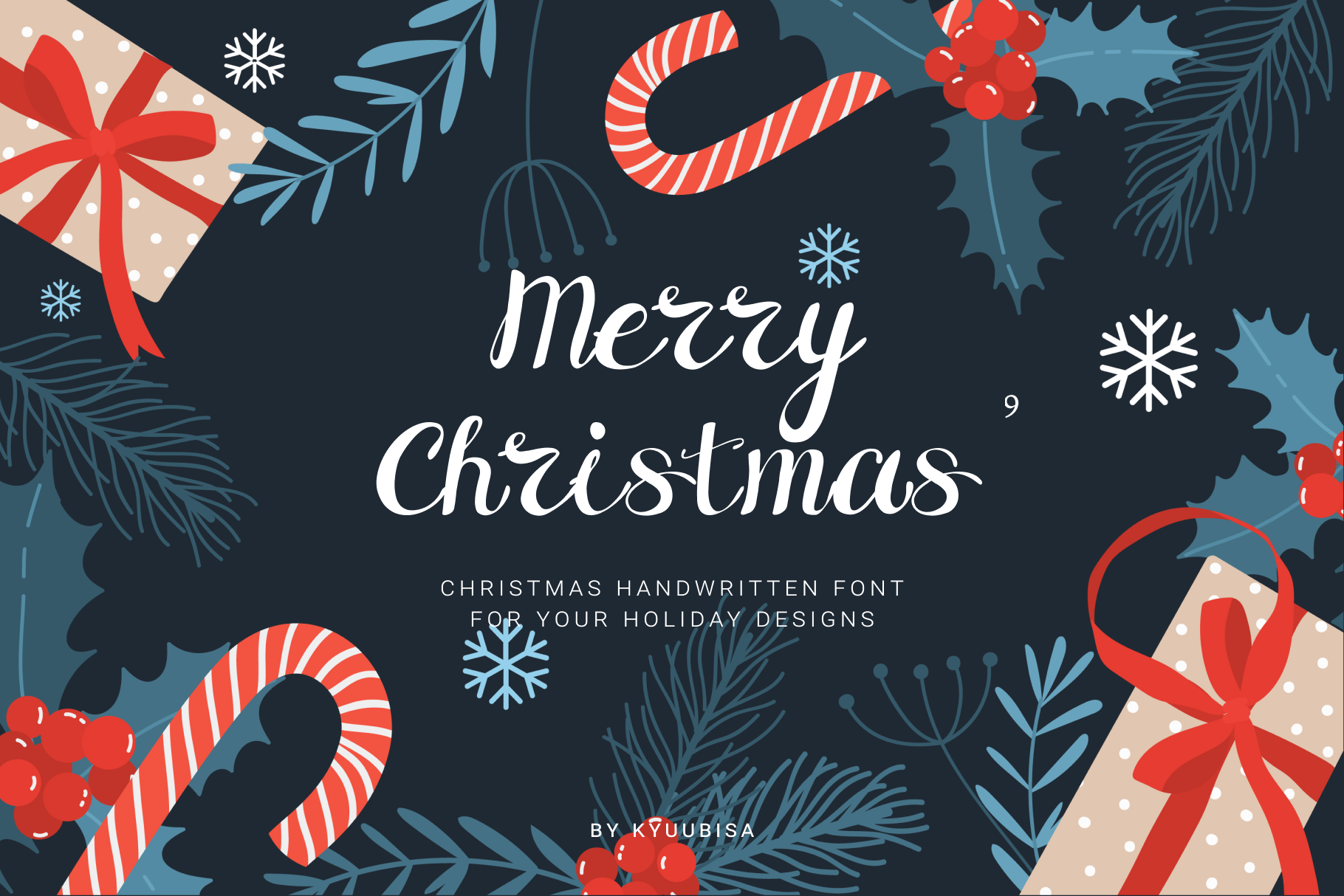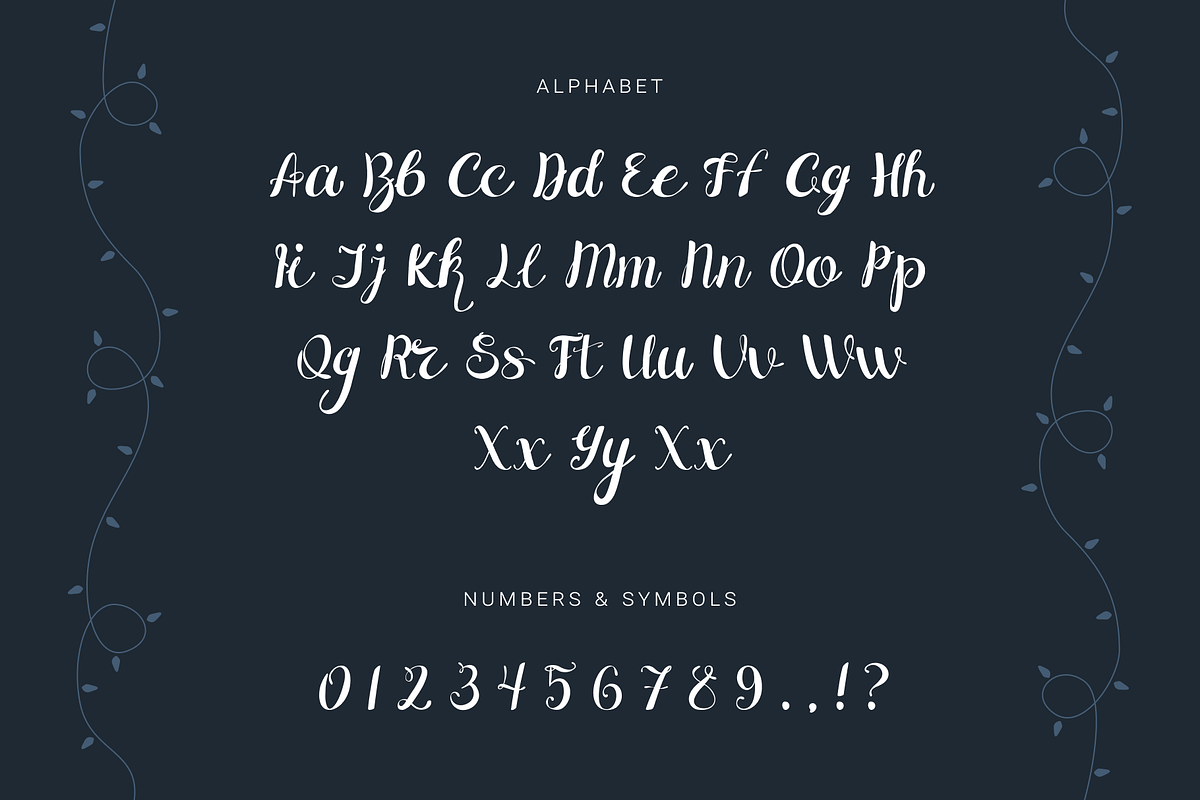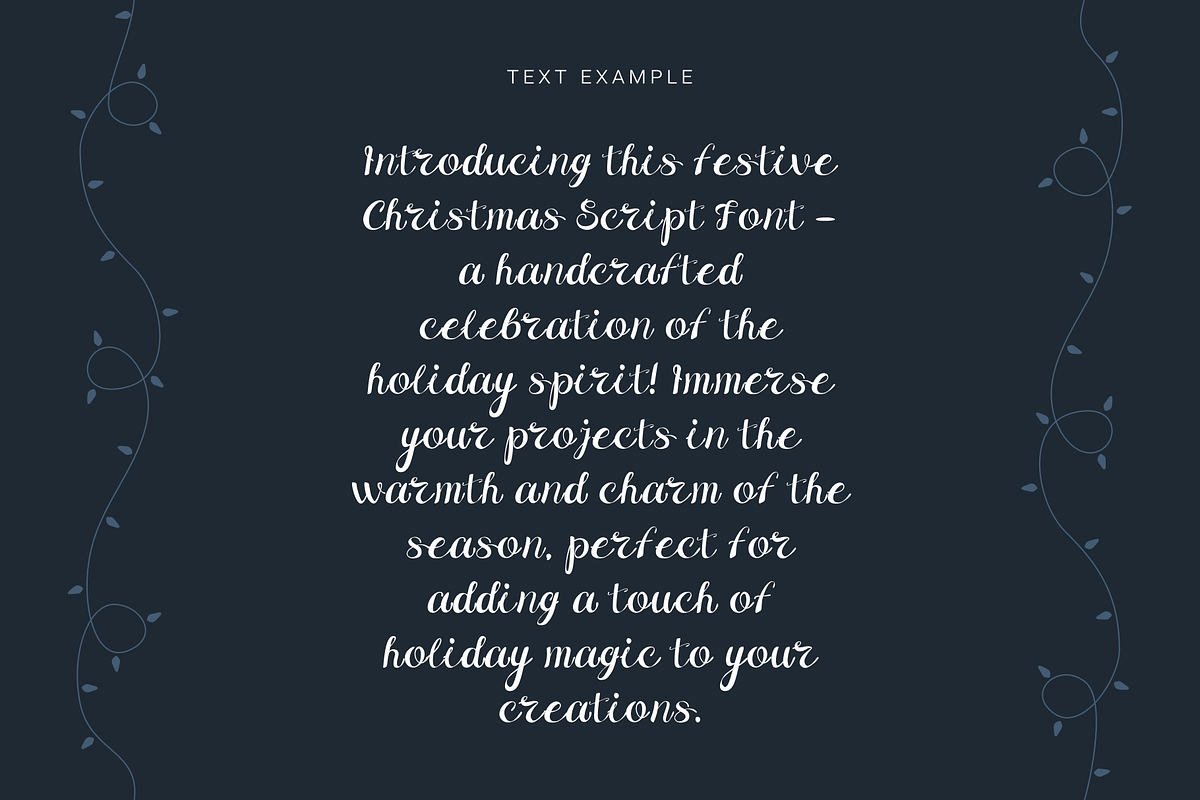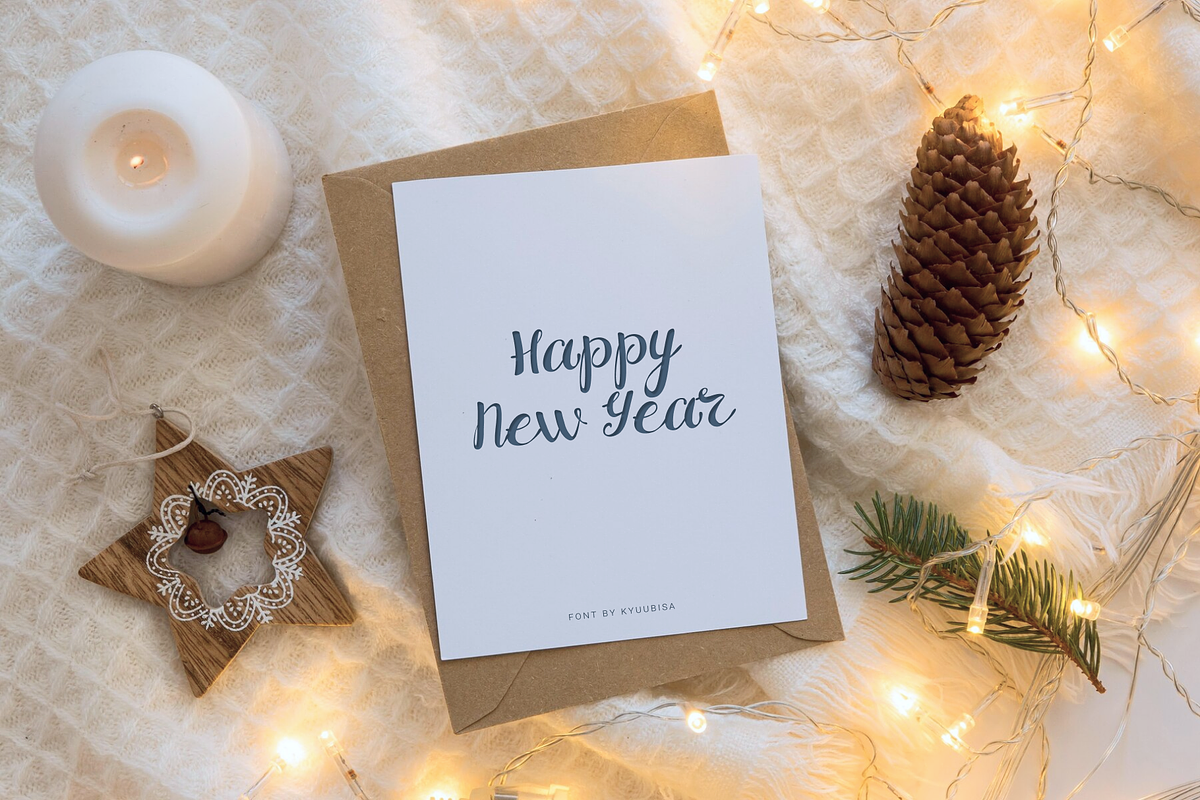
Merry Christmas handwritten font
Introducing this festive Christmas Script Font – a handcrafted celebration of the holiday spirit! Immerse your projects in the warmth and charm of the season with this intricately designed script, perfect for adding a touch of holiday magic to your creations.
With whimsical curls and festive flair, this Christmas Script Font captures the essence of the season, making it ideal for a wide range of holiday-themed projects. From greeting cards and invitations to banners and social media posts, this font brings a joyful and personalized touch to your designs.
Crafted with care, each letter dances with the spirit of Christmas, adorned with playful swirls and seasonal accents. Use it to convey the magic of the holidays in your messages or to infuse your designs with the enchantment of the festive season.